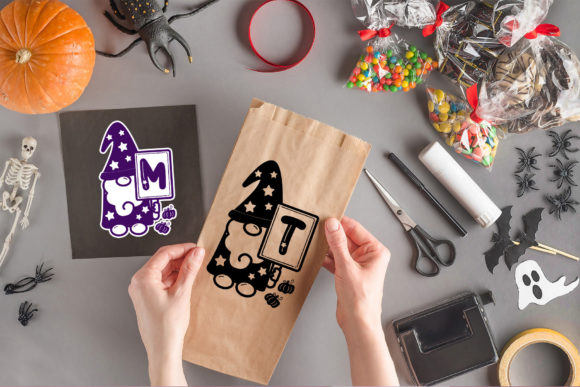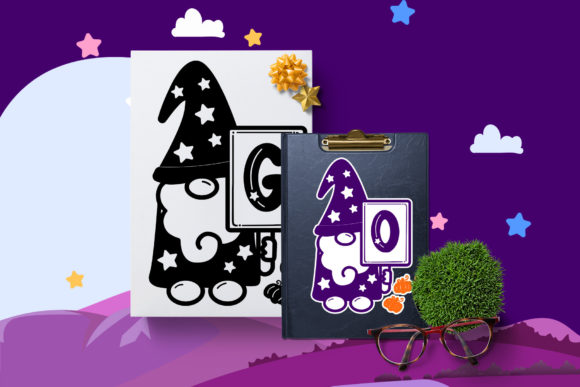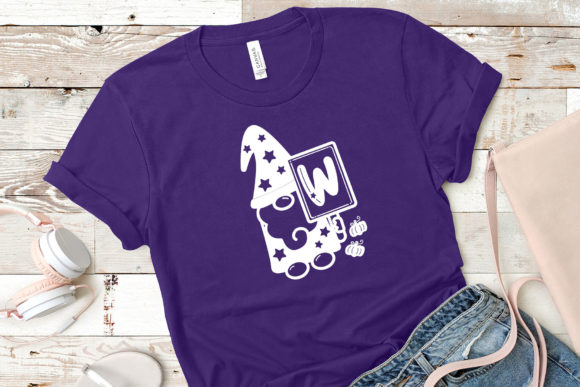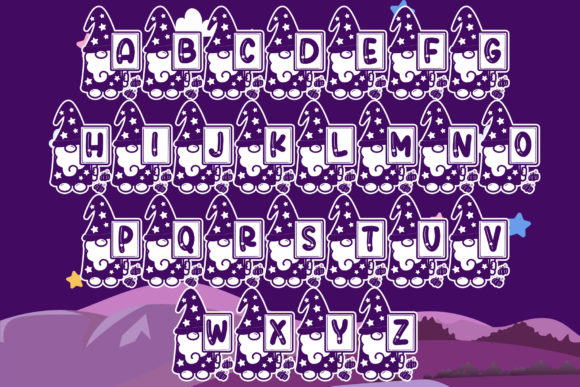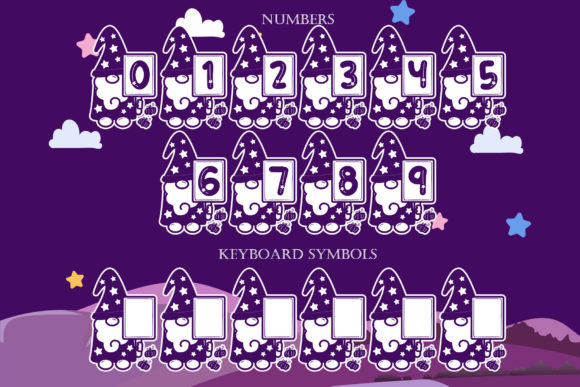
Introduction to Monogram Witch Gnome Font
Do you remember that moment when you’re brainstorming a new design project and you stumble upon the perfect font that makes everything come together? For many designers, that moment is a game-changer. It’s the spark that ignites the creativity and sets the tone for the entire project. For those who’ve experienced it, they know exactly what we’re talking about.
One such font that’s been making waves in the design community is the Monogram Witch Gnome Font. This cool and incredibly original decorative font is a treasure trove of possibilities, waiting to be unleashed on your next creative project. With its high-quality design and transparent background, it’s an invaluable resource for designers who crave that extra touch of magic in their work.
Whether you’re working on a children’s game, a cartoon-related design, or any other project that requires a dash of whimsy, the Monogram Witch Gnome Font is an amazing choice. And the best part? It’s available for free download, making it an accessible design resource for designers of all levels.
Key Features of Monogram Witch Gnome Font
- Unique design: This font features intricate monogram designs with a whimsical touch, perfect for adding a magical feel to your creative project.
- Transparent background: The font’s transparent background allows for seamless integration with any design element, making it a versatile design resource for various creative projects.
- Customizable: With its unique design elements, this font can be easily customized to fit your specific design needs, making it a valuable addition to any design resource library.
Honest Review: Monogram Witch Gnome Font
I recently had the chance to work with the Monogram Witch Gnome Font, and I must say it’s a great addition to any design resource library. This high-quality font is perfect for creative projects that require a unique touch.
- Unique and whimsical design style that adds a touch of magic to any project
- High-quality vectors that are perfect for scalable designs
- Transparent background, allowing for easy layering and customization
One of the standout features of the Monogram Witch Gnome Font is its versatility. Whether you’re working on a children’s book, a fantasy-themed website, or a craft project, this font is sure to bring a touch of creativity and whimsy to your design.
- Limited character set, which may not be suitable for large blocks of text
- No bold or italic variants, which may limit its use in certain design contexts
Overall, I’m impressed with the Monogram Witch Gnome Font and would highly recommend it to designers looking for a unique and high-quality design resource.
The Monogram Witch Gnome Font is ideal for creative projects such as invitations, posters, and digital graphics. It’s also a great choice for branding and marketing materials, including logos and business cards. With its unique design and high-quality appearance, this font is sure to make your projects stand out.